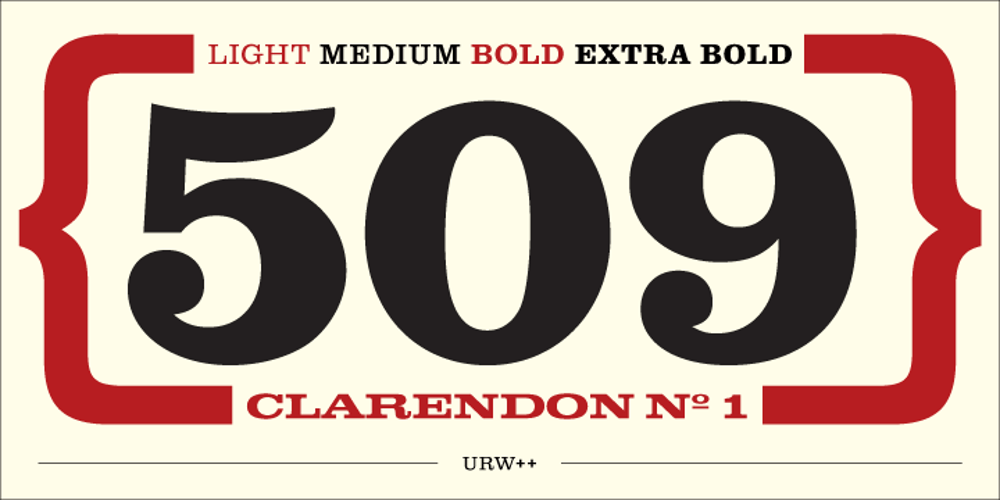
Clarendon No 1
Clarendon No 1 font
Clarendon No 1 Font Family was designed by Hermann Eidenbenz and published by URW Type Foundry. Clarendon No 1 contains 7 styles and family package options. The first Clarendon was introduced in 1845 by R Besley & Co, The Fan Street Foundry, as a general purpose bold for use in conjunction with other faces in works such as dictionaries. In some respects, Clarendon can be regarded as a refined version of the Egyptian style and as such can be used for text settings, although headline and display work is more usual. Clarendon is a trademark of Linotype GmbH registered in the U.S. Patent and Trademark Office and may be registered in certain other jurisdictions.